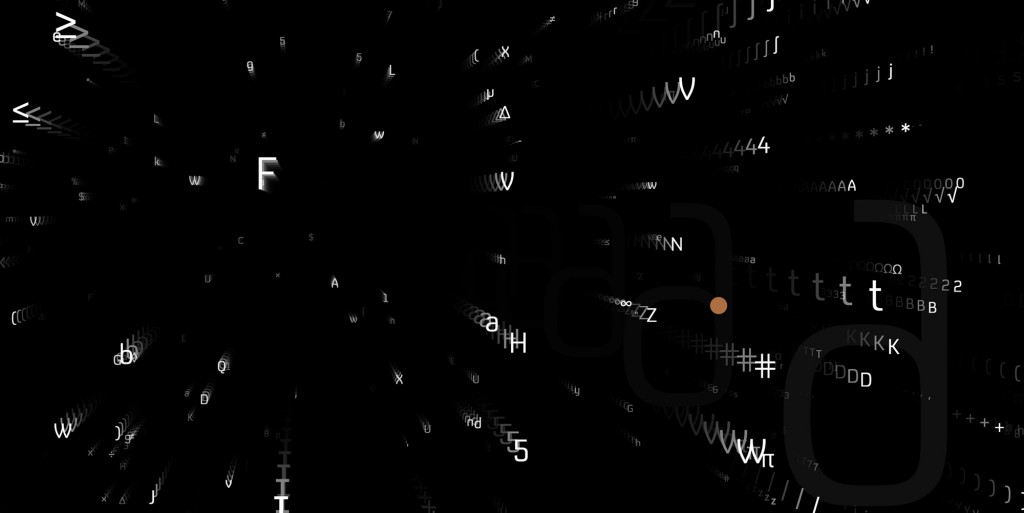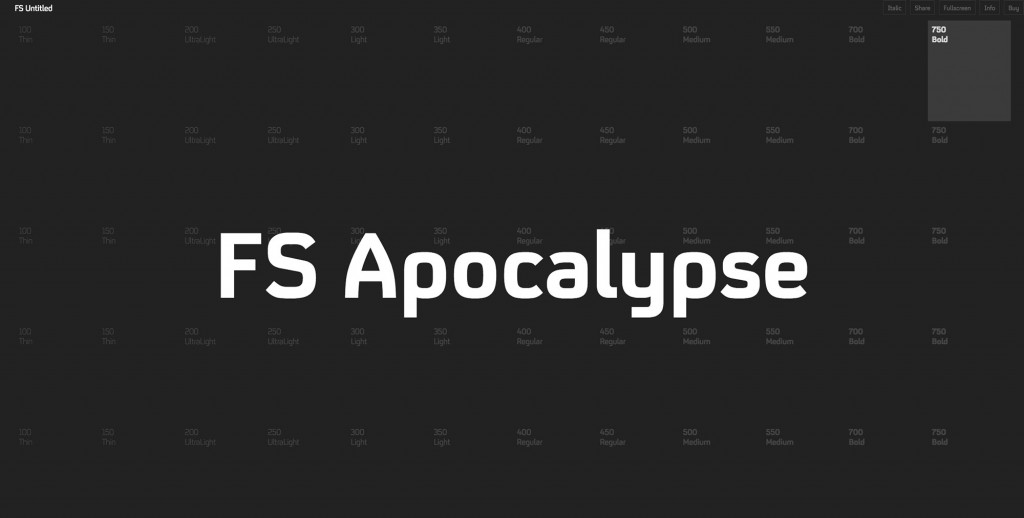
Back story: FS Untitled started out in 2005 as a proprietary design for the UK’s Channel Four, and now that the terms of the license have expired the typeface has been reengineered for a wider audience. Fontsmith developed an infinitely adjustable typeface for digital screens with very fine calibrations of weight to minimize reliance on font hinting and keep the letterforms sharp at all sizes. “However valid hinting is,” says Fontsmith founder Jason Smith, “it’s irrelevant if the design isn’t fit for its purpose or the weights aren’t effective on certain background colors or images, or at certain sizes.”
Why’s it called FS Untitled? “With such a range of weights, personalities, and possible applications, from apps to websites to digital billboards, the family was never going to sit comfortably under a single specific name. ‘FS Untitled’ was the only solution,” says Matthew Rudd of The Space Between who, together with design partner Steve Jones, designed a unique website (more on that below!) for the project launch.
What are its distinguishing characteristics? FS Untitled comes in 12 weights (and is drawn with two versions of each weight—double the options!) for maximum flexibility and versatility, giving designers and developers precise typographic control. It owes its pixel friendliness to a blend of nearly flat horizontals and verticals with slightly open, curved corners inspired by what Rudd and Jones call “the classic cartoon TV shape of a squidgy rectangle.” The 12 weight pairs have each been given a number from 100 (thin) to 750 (bold), mirroring the system by type design grandaddy Adrian Frutiger to classify his Univers font family, used here to reflect the font weight numbering in CSS code.
What should I use it for? All things digital. To get an idea of the range of possibilities, check out the wonderfully distracting Digital Playground created by Rudd and Jones. Each weight is given an interactive specimen sheet and four different activity zones. In each zone the word Untitled is replaced with a description of the scene like ‘FS Zombie,’ ‘FS Alchemist,’ etc. Rudd says, “We worked hard to create many different kinds of typographic execution. All scenes are interactive—for example, FS Zombie is a fully functioning arcade game and FS Alchemist takes the user from lead to gold via every letter in the alphabet.” Warning: may be habit forming.
Who’s it friends with? Who isn’t it friends with? With this many options, designers can find something to pair well with nearly any other typeface choice.